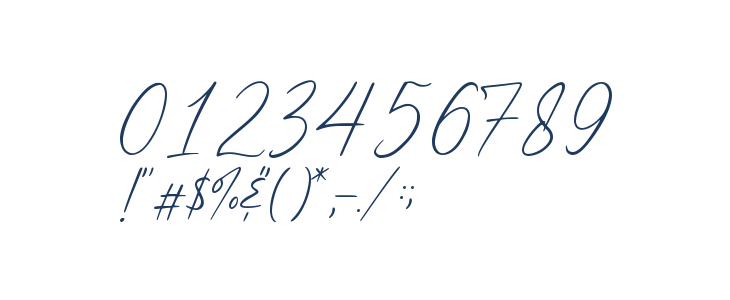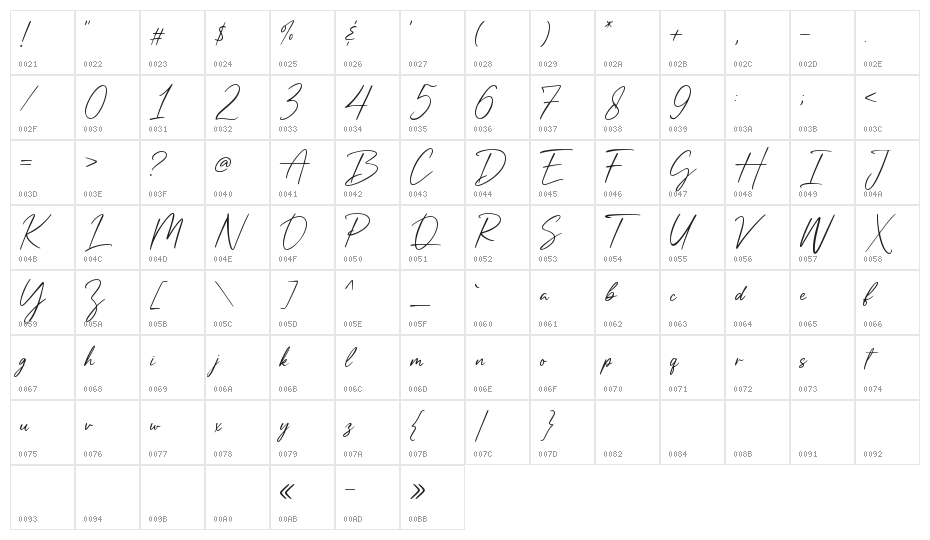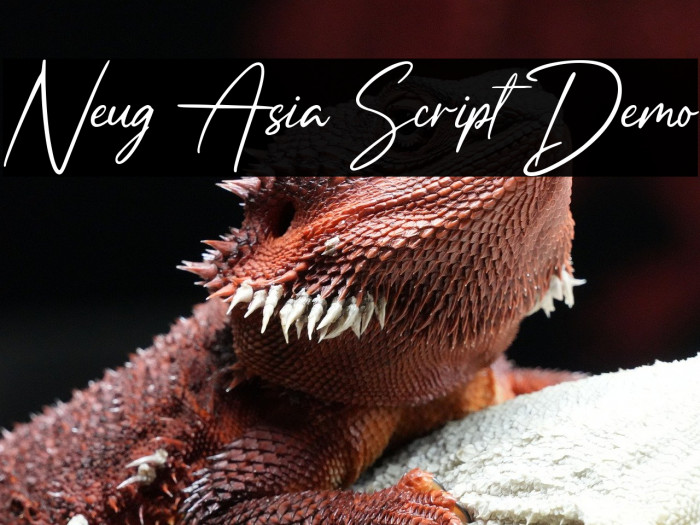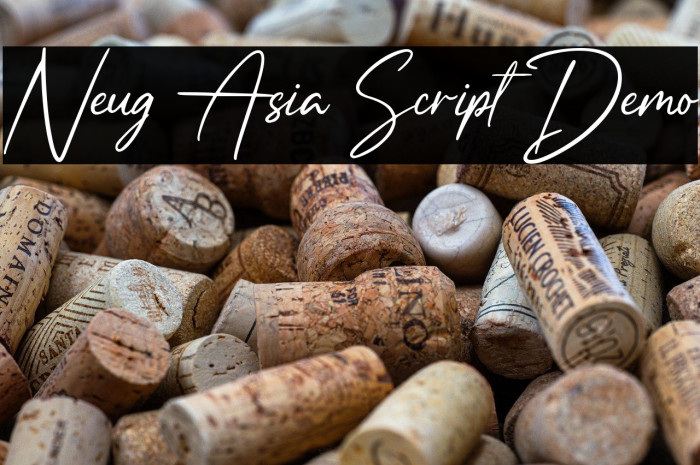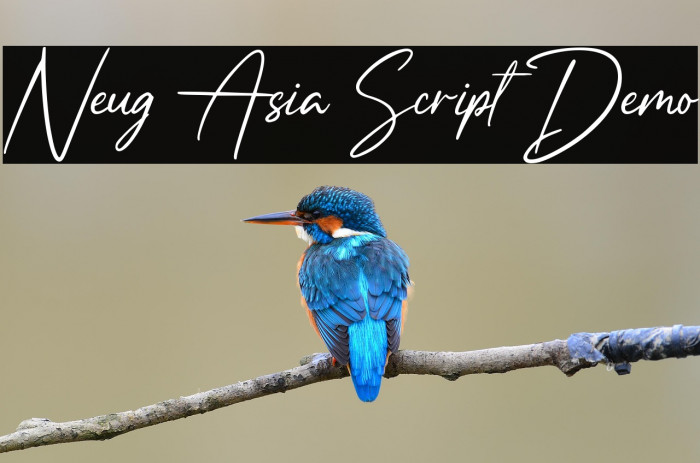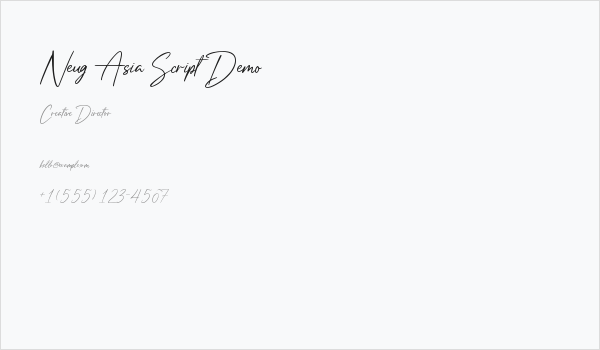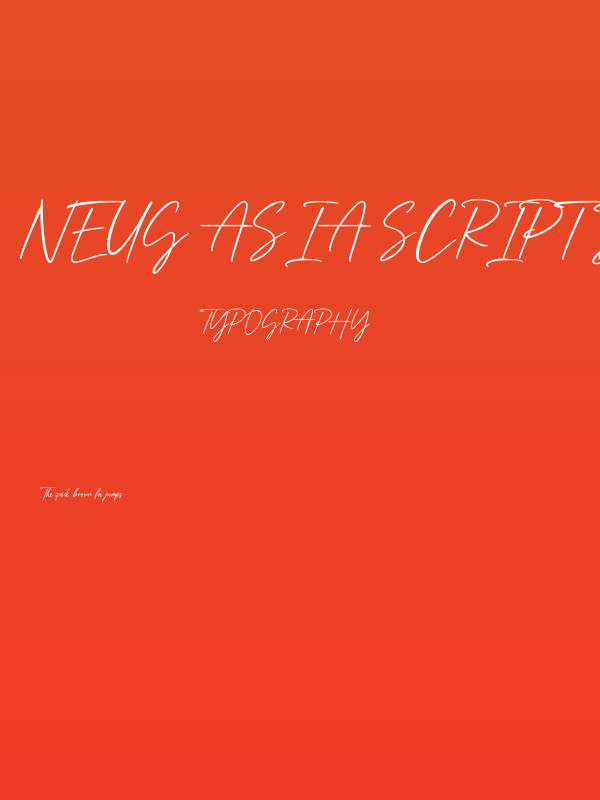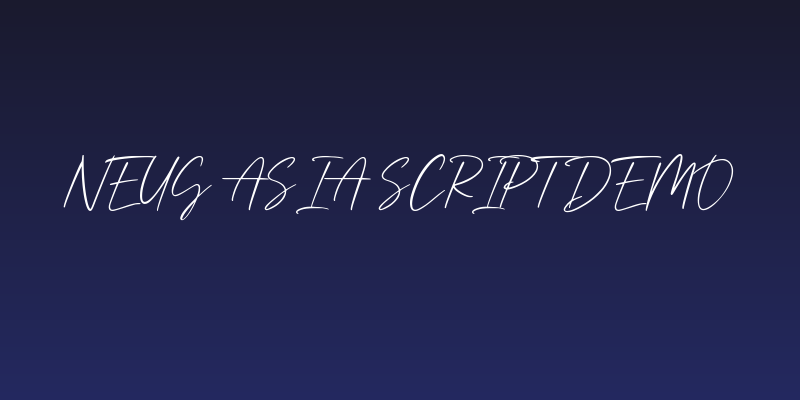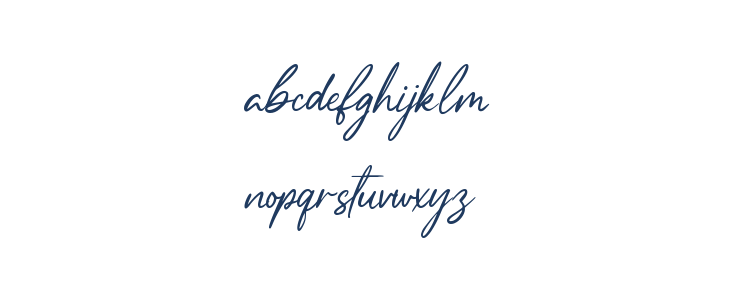
Neug Asia Script Demo Font
Neug Asia Script Demo Description
This font exhibits a flowing, cursive style that mimics elegant handwriting. The uppercase letters are tall and slightly slanted, giving a sense of movement and grace. The lowercase letters are more compact, maintaining the cursive flow with smooth connections between characters. Numbers and special characters are designed to match the overall script style, with consistent stroke widths and a harmonious appearance. The font's delicate lines and artistic flair make it suitable for projects that require a personal touch or a sophisticated aesthetic.
Overall StyleElegant, Handwritten
Use CaseLogos, Invitations, Personal Branding
Proposed ProjectsIdeal for wedding invitations, greeting cards, personal branding, and elegant packaging designs.